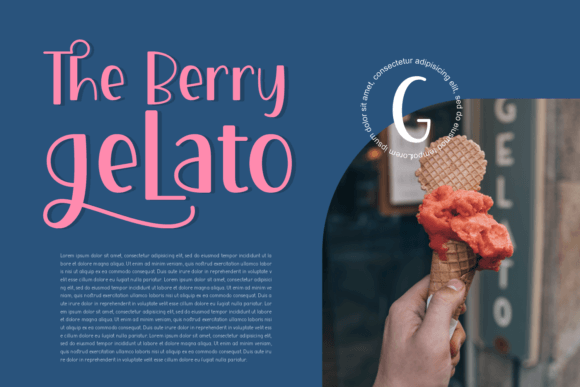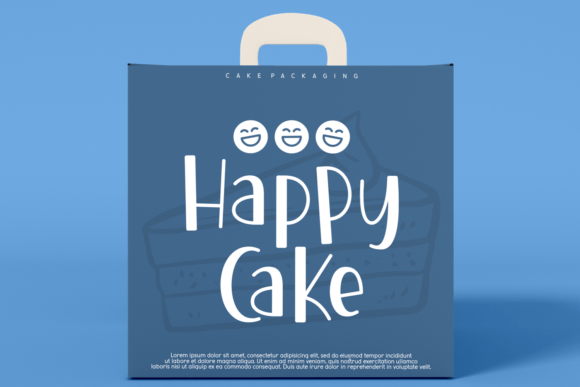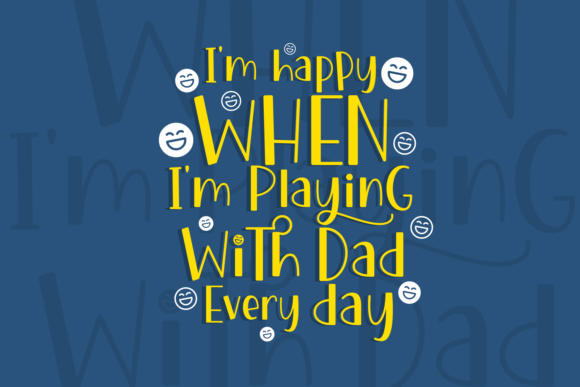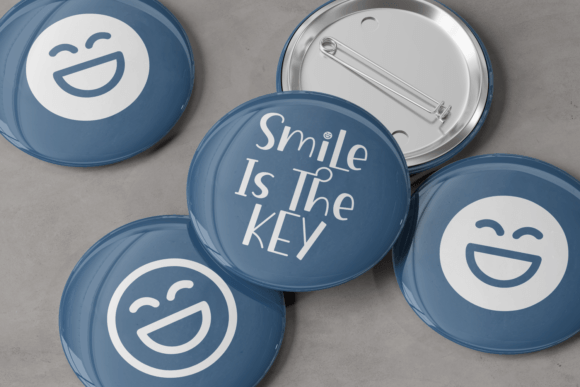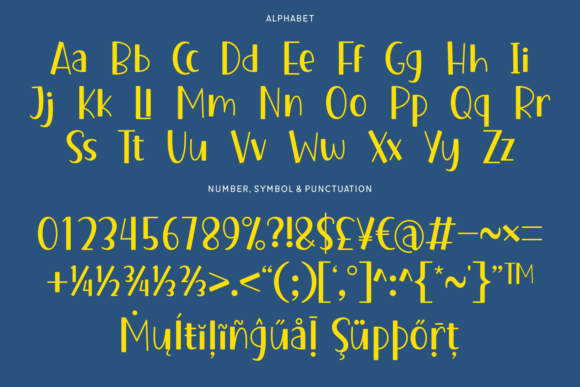
Introducing Happy Anytime Font: The Ultimate Joyful Display Font
Are you tired of using the same old fonts for your design projects? Look no further! Happy Anytime Font is here to revolutionize your typography with its modern and joyful display style. This adorable font is perfect for designers, crafters, and anyone looking to add a touch of whimsy to their work.
What Makes Happy Anytime Font So Special?
Happy Anytime Font is a modern display font that is sure to make any typography stand out. Its unique and charming design makes it perfect for a variety of projects, including posters, paper crafts, branding projects, cards, and more. The font’s playful and joyful vibe is guaranteed to bring a smile to your face and make your designs more engaging.
Key Features of Happy Anytime Font
- PUA Encoded: Happy Anytime Font is PUA encoded, which means you can easily access all the charming glyphs, swashes, and ligatures. This makes it easy to customize your typography and add a personal touch to your designs.
- Modern and Joyful Design: The font’s modern and joyful design makes it perfect for a wide range of projects, from posters and flyers to cards and invitations.
- Cute and Playful: Happy Anytime Font is a cute and playful font that is sure to add a touch of whimsy to your designs.
- Highly Versatile: The font is highly versatile and can be used for a variety of projects, including posters, paper crafts, branding projects, cards, and more.
Why Choose Happy Anytime Font?
There are many reasons why Happy Anytime Font is the perfect choice for your design projects. Here are just a few:
- High-Quality Design: The font is designed with high-quality and precision, ensuring that it looks great in any design.
- Unique and Charming: Happy Anytime Font is a unique and charming font that is sure to make your designs stand out.
Happy Anytime Font is a joyful and modern display font that is perfect for designers, crafters, and anyone looking to add a touch of whimsy to their work. With its unique and charming design, PUA encoding, and high-quality features, this font is sure to make any typography stand out. Whether you’re working on a poster, card, or branding project, Happy Anytime Font is the perfect choice.